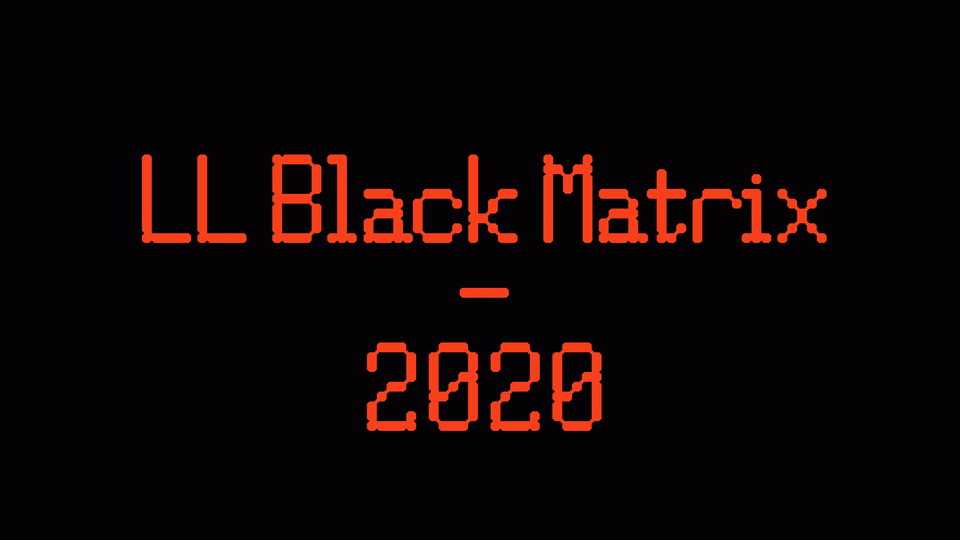
Download LL Black Matrix font, a display typeface that is an extension of a pin-printer font. LL Black Matrix is based on a 5-by-9 grid, which is visually unified by the connection of the dots.